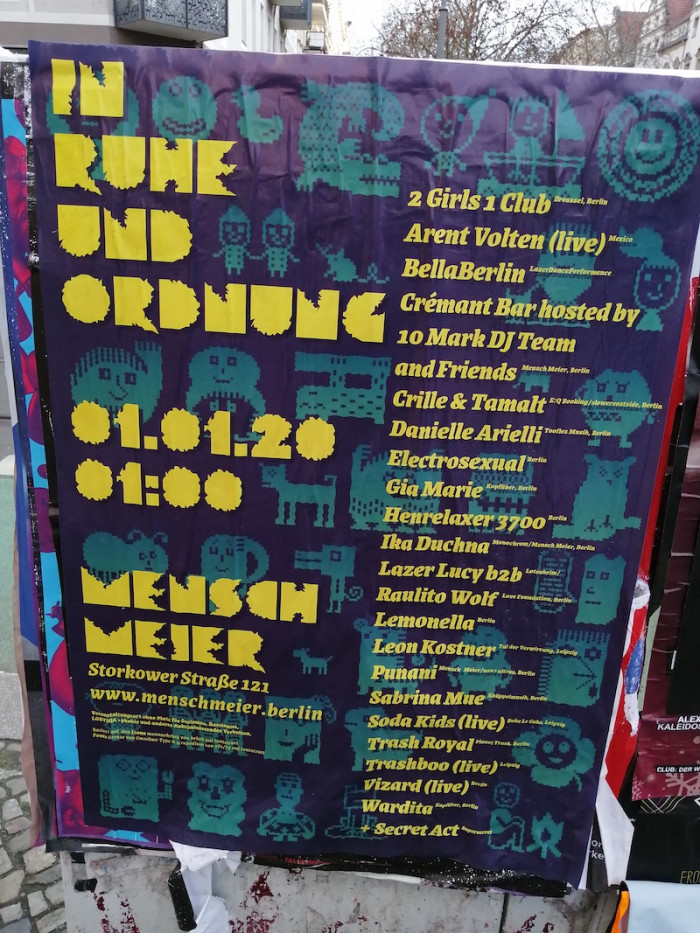
my characters :)
these are great. so creative, fun, and inventive. you have quite an imagination :)
A well-executed, highly imaginative and interesting set.
Great fun - and a great animated sample :)
Congratulations! FontStruct Staff have deemed your FontStruction worthy of special mention. “mononokekeh” is now a Top Pick.
Wow! It's wonderful!
Congratulations! FontStruct Staff have deemed your FontStruction worthy of special mention. “mononokekeh” is now a current Featured FontStruction.
I guess it's alright. 7 stars.
for some reason I can't get over the circles on the "H" character. It just looks perfect.
I'll show this font to my three kids! Excellent.
Nice job! Very creative, yet interesting. You really did a nice job, keep it up!
Oh yes, one more thing, I like how you made a certain character, and made another version of the character slightly moving. Like on your animation, you used 2 different characters!
超可愛い!
I love these.
Spotted this around the corner from my flat, with zcrapedium eYe/FS for the headlines.